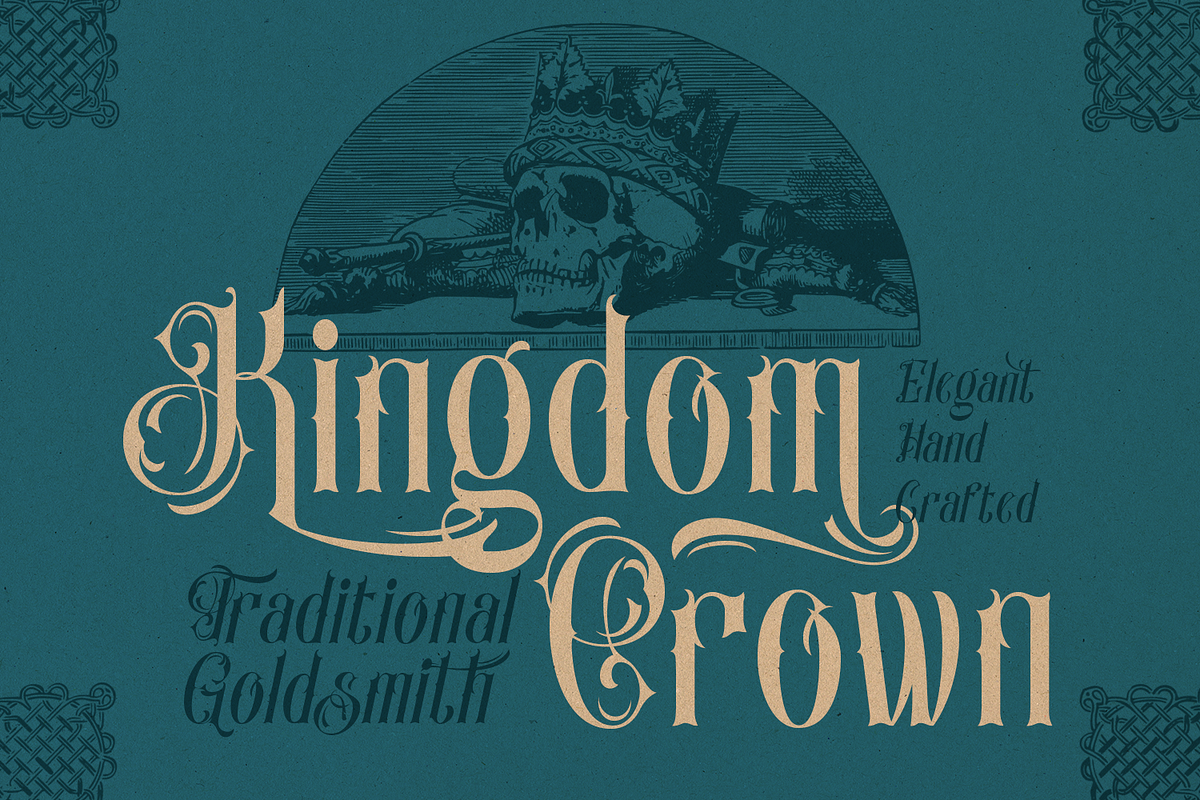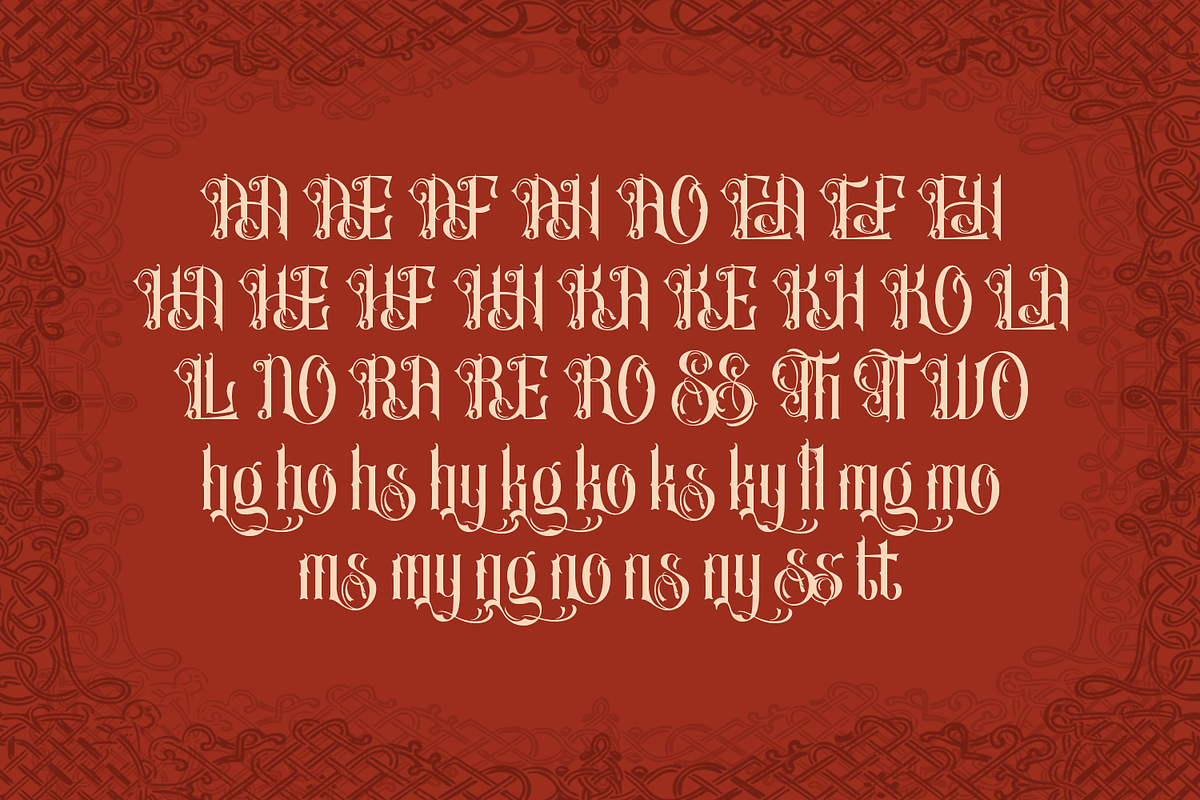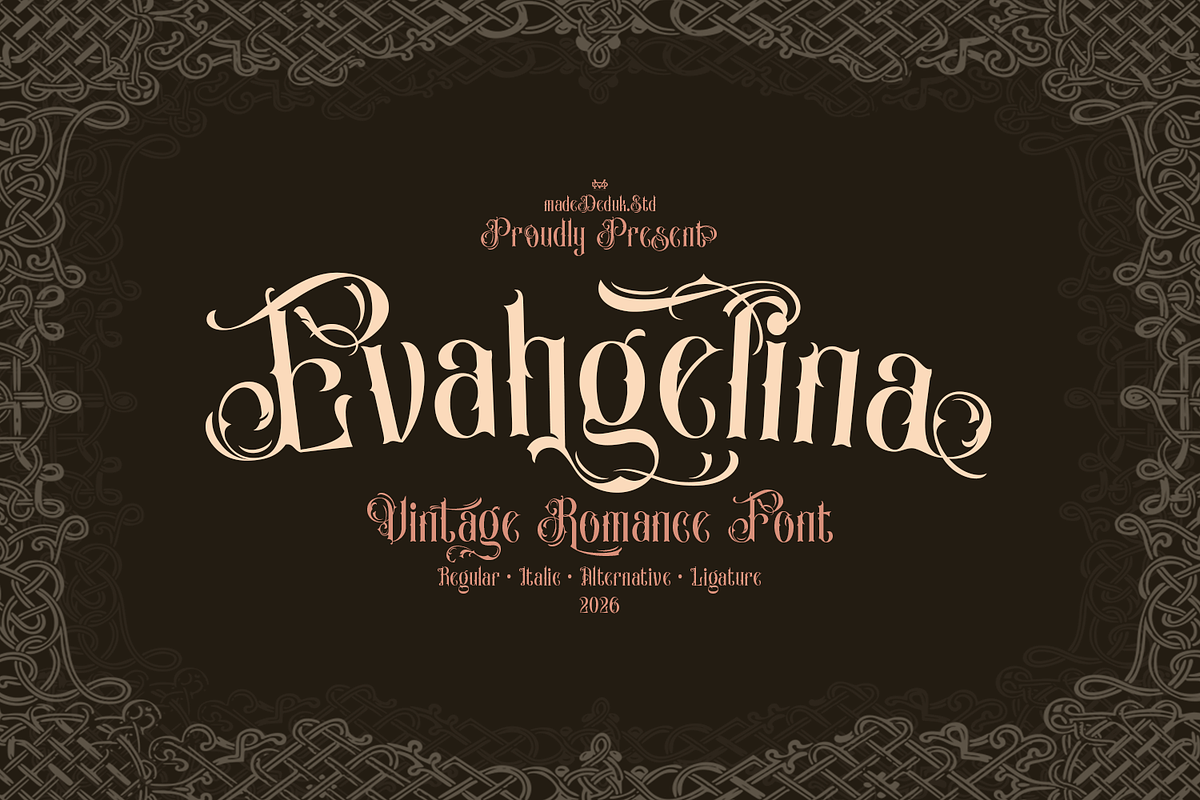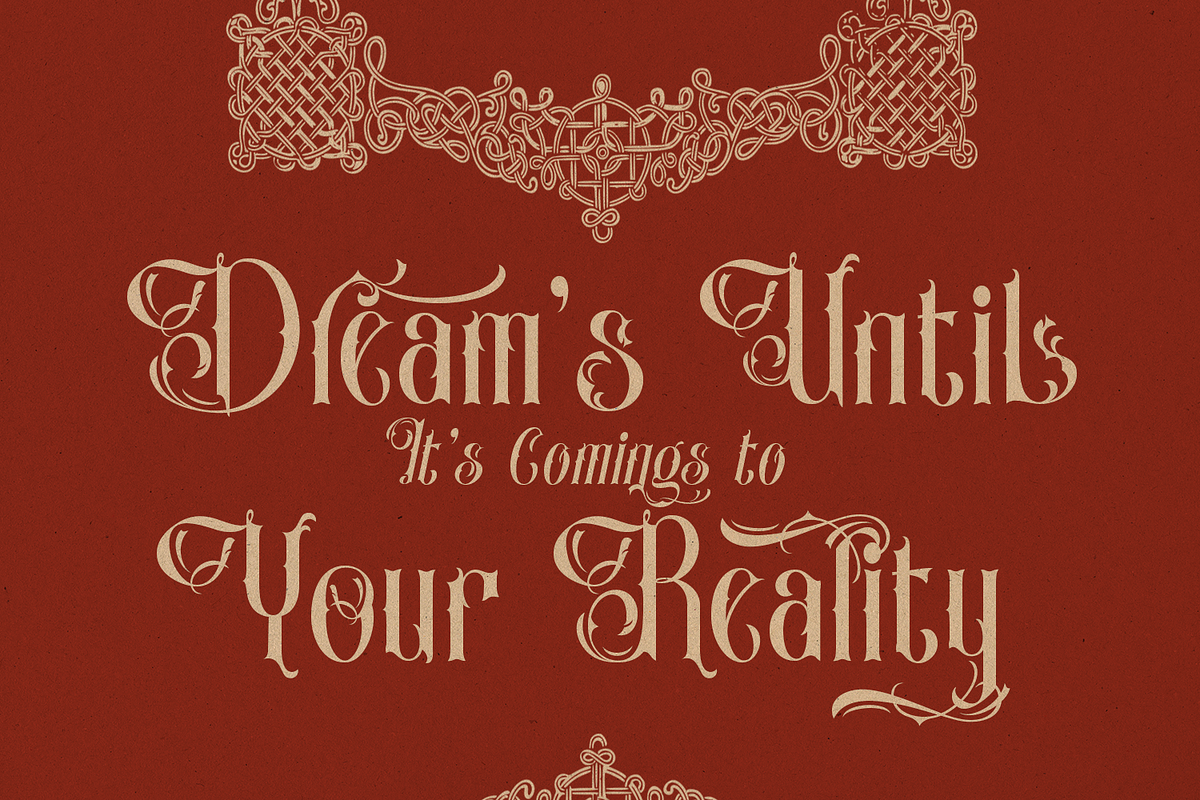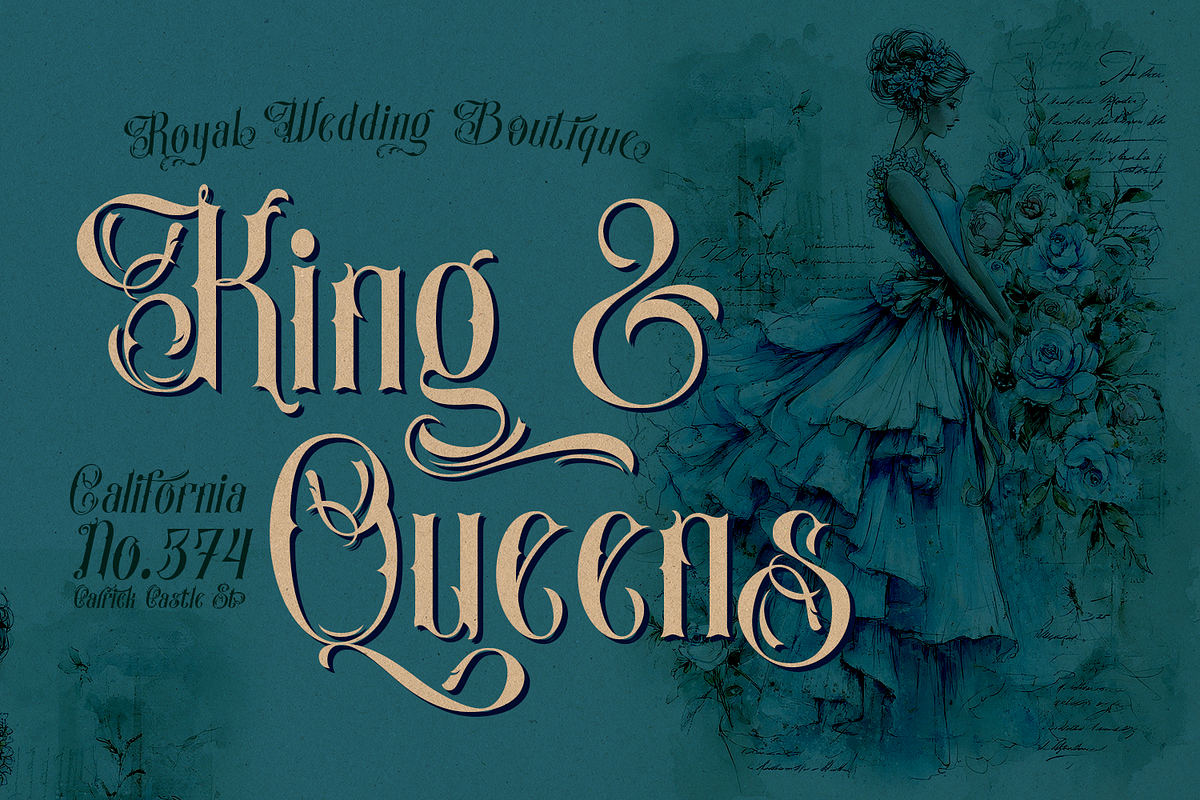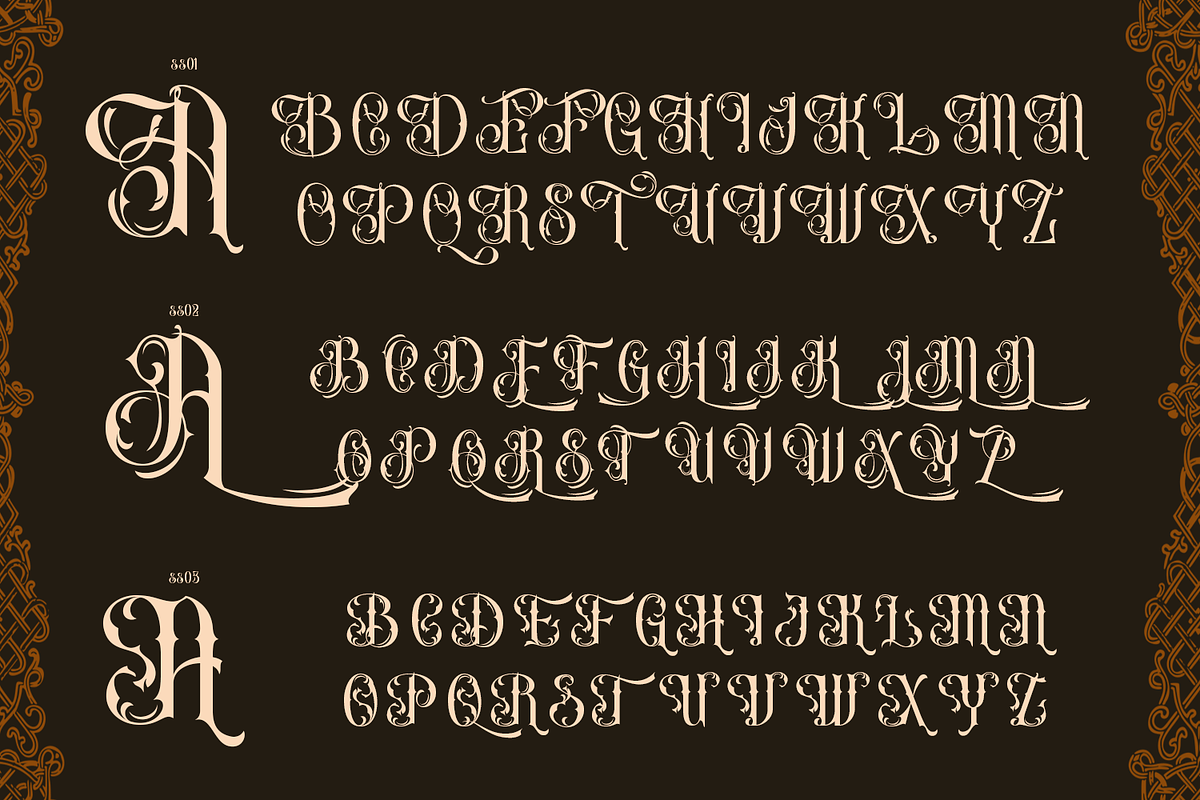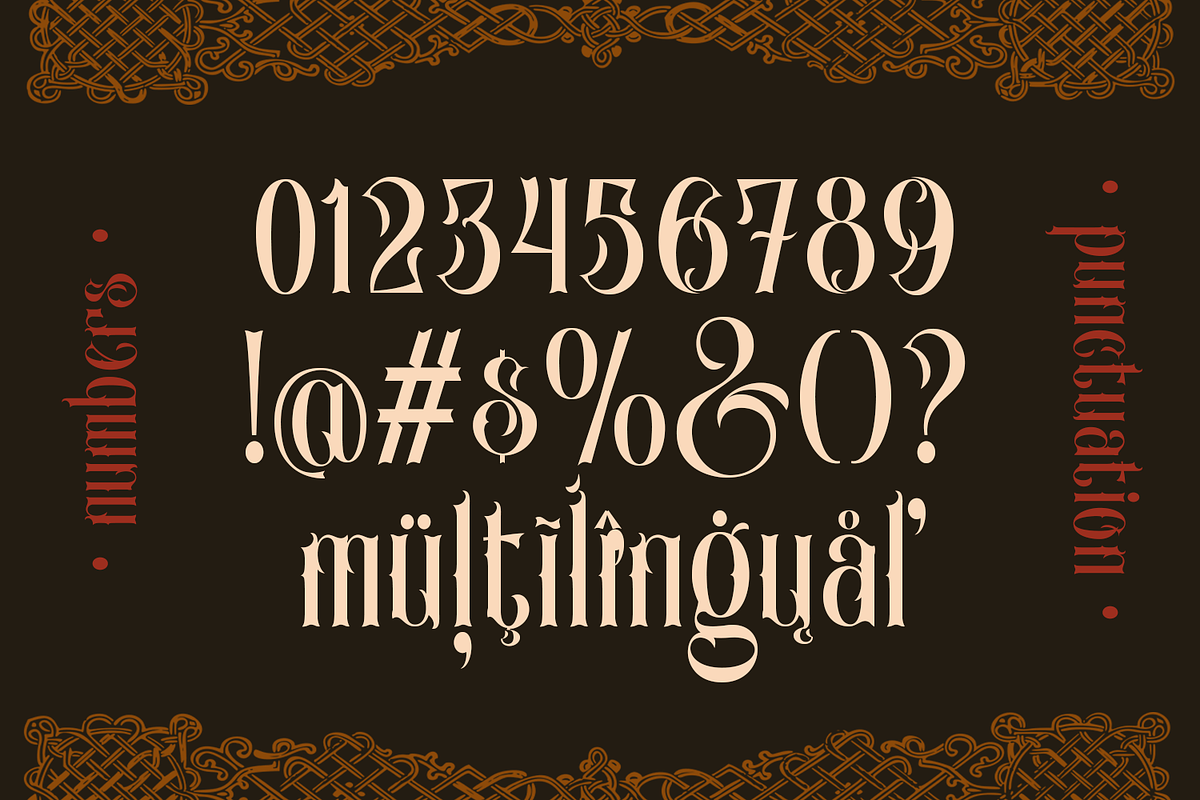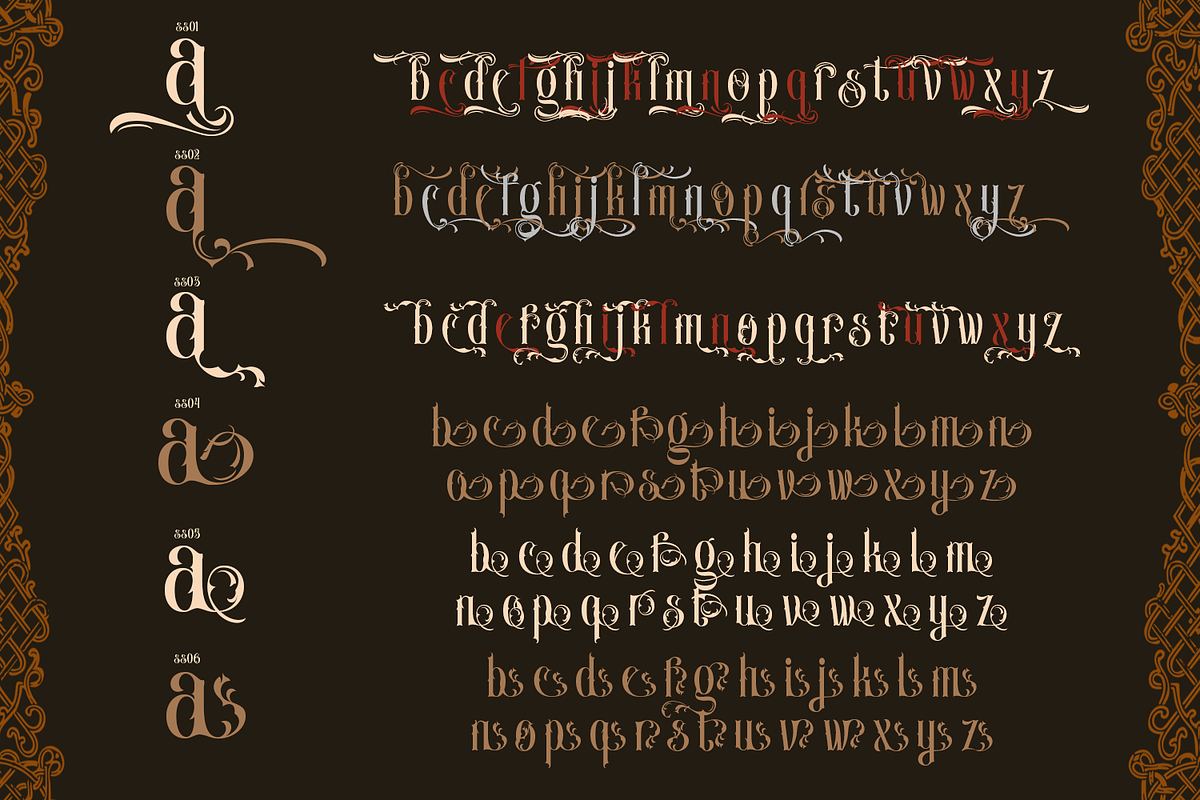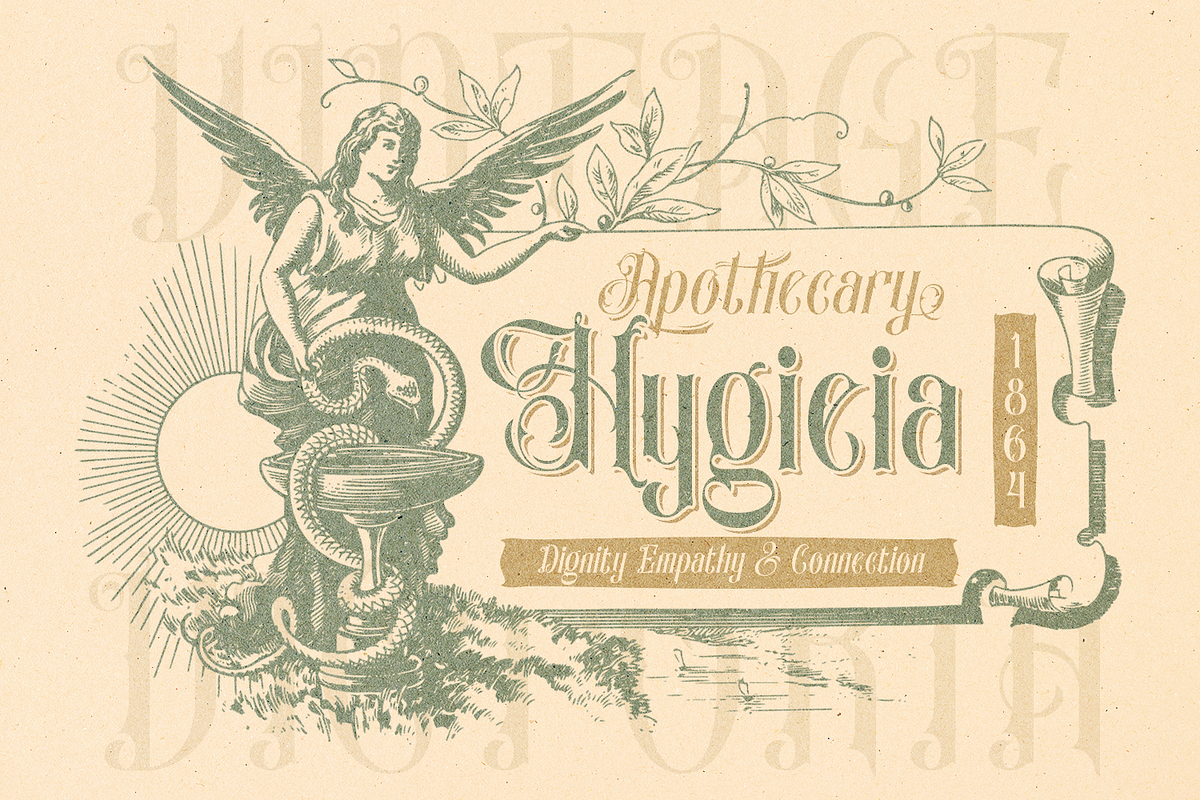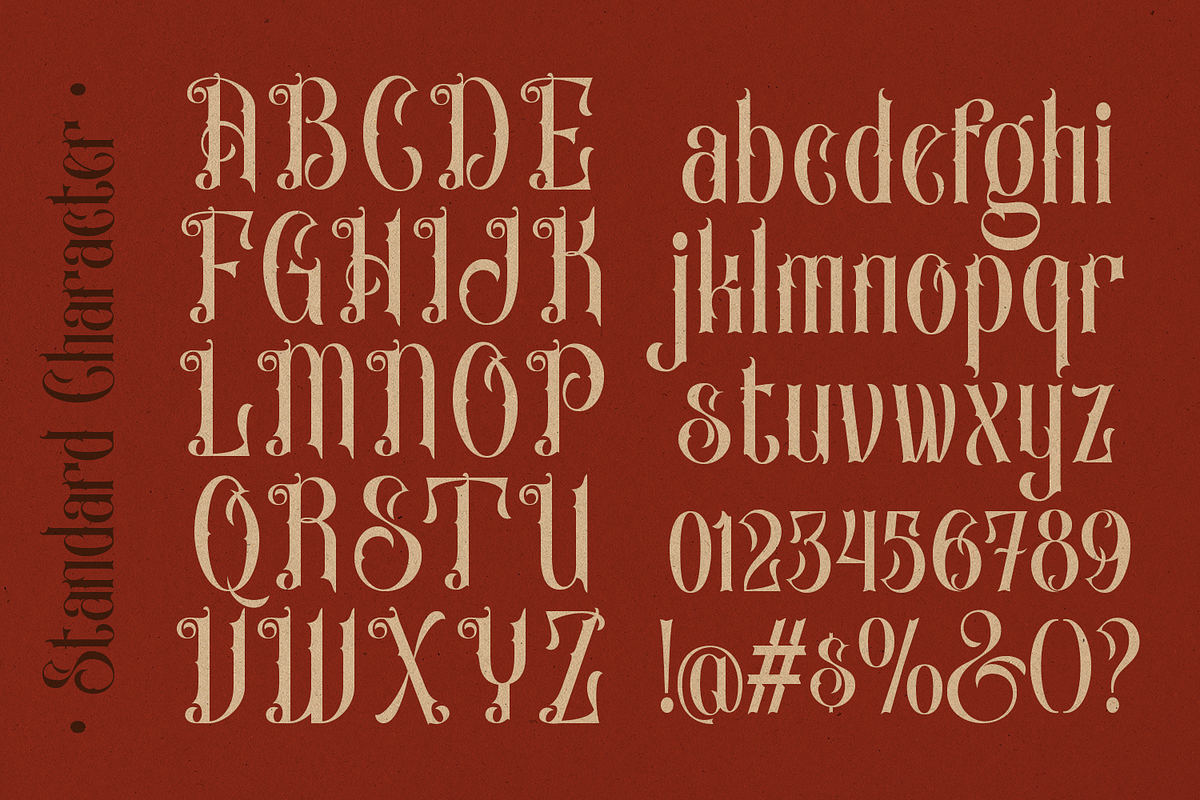
Evahgelina Vintage Font
Introducing Evahgelina vintage romance font, this font presents a classic aristocratic style with richly detailed letterforms and strong, decorative serif structures. Each character is carefully balanced, featuring ornamental curves that create a sense of grandeur, heritage, and timeless elegance. Its visual character is inspired by old European typography often seen in historical books, vintage signage, and Victorian-era design.
With its bold personality and distinctive identity, this font is ideal for headlines, logos, poster titles, premium packaging, and vintage or gothic-themed designs. The letterforms deliver strong visual impact while maintaining clarity, helping to elevate any composition with a sense of luxury, drama, and classic sophistication.
- International Glyphs